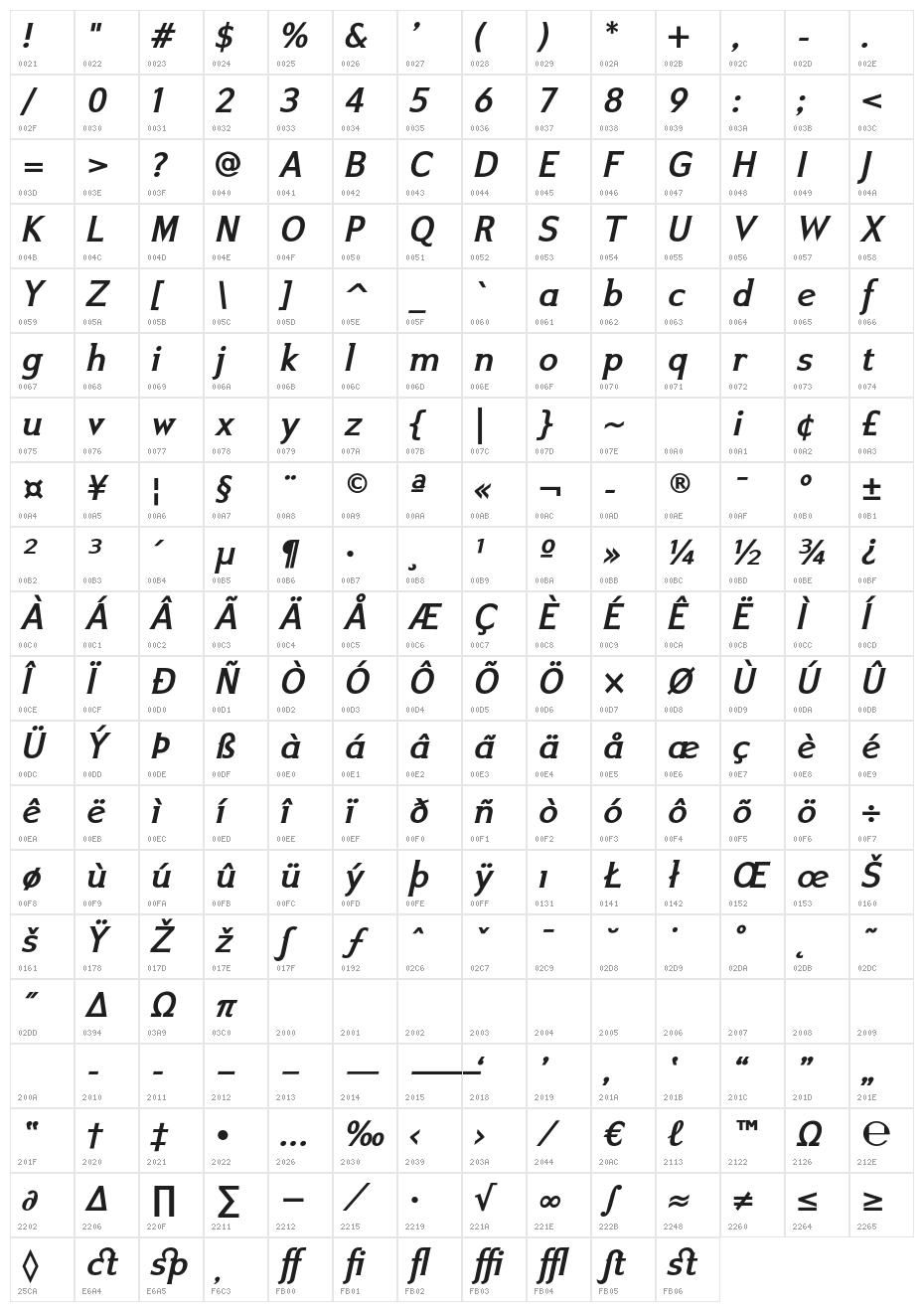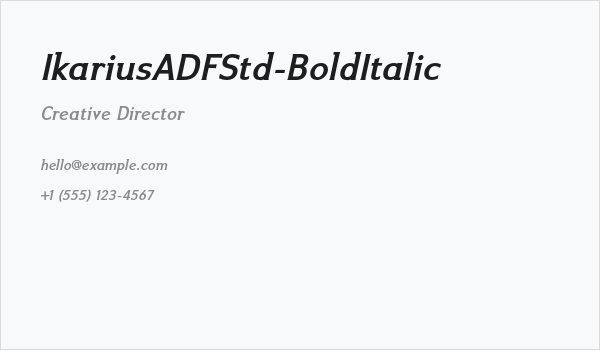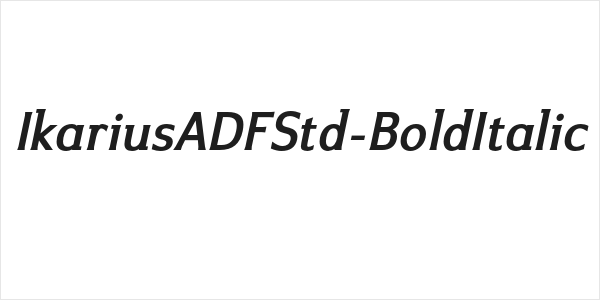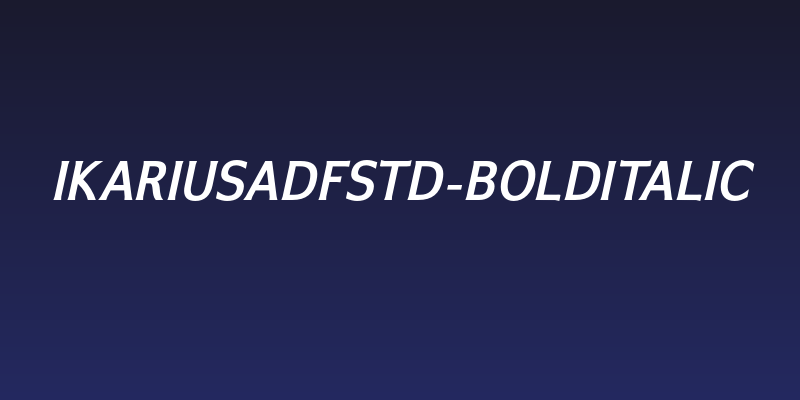
IkariusADFStd-BoldItalic Font
IkariusADFStd-BoldItalic Description
This font exhibits a bold and italicized style, characterized by its strong and dynamic presence. The letters are slightly slanted, giving a sense of movement and fluidity. The strokes are consistent and bold, providing a clear and impactful appearance. The uppercase and lowercase letters maintain a uniform style, with smooth curves and sharp edges that enhance readability. The numerals are well-proportioned and align seamlessly with the overall design. Special characters are distinct and integrate well with the alphabetic characters, ensuring versatility in various applications.
| Proposed Projects | Ideal for branding, advertising, and editorial design where a strong and modern impression is desired. |